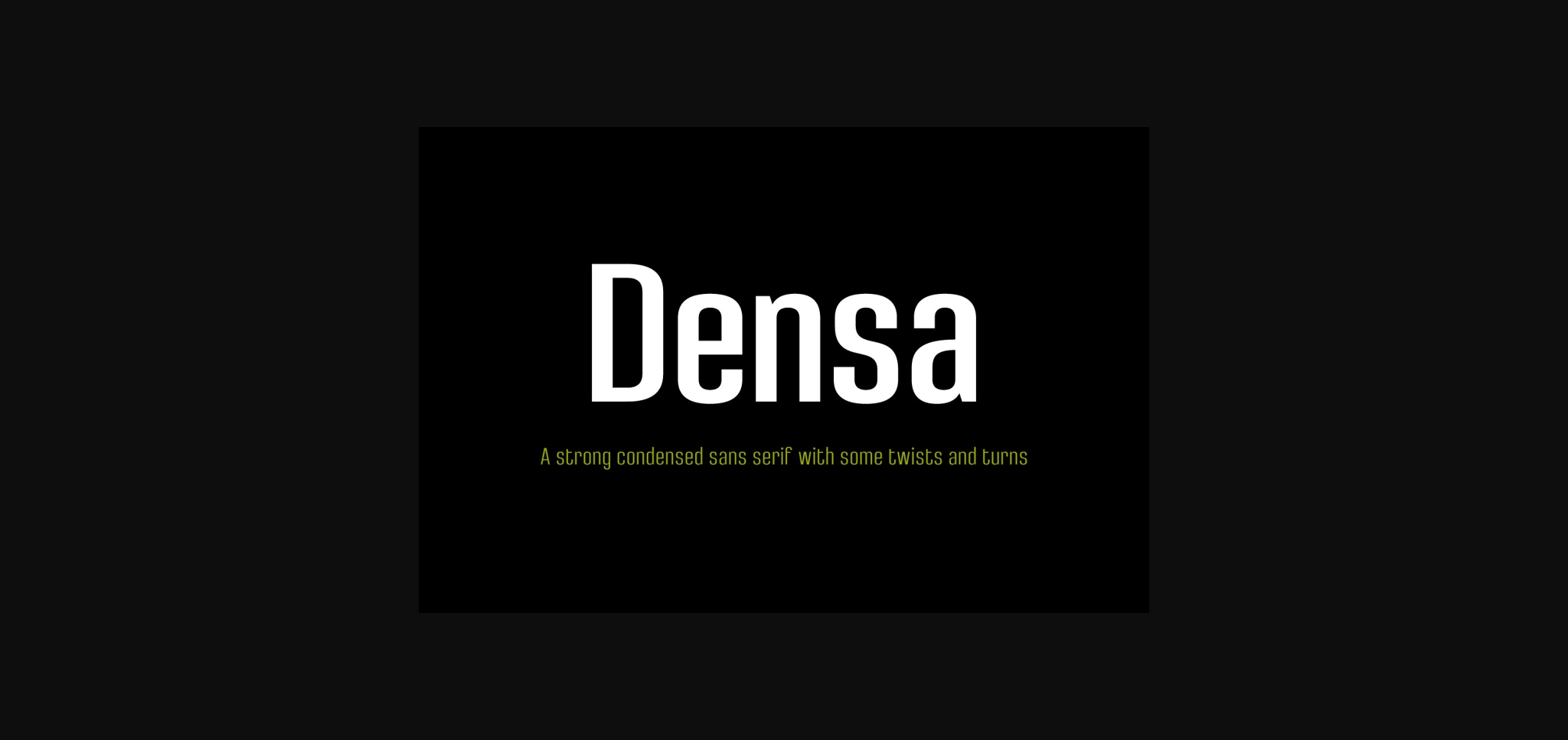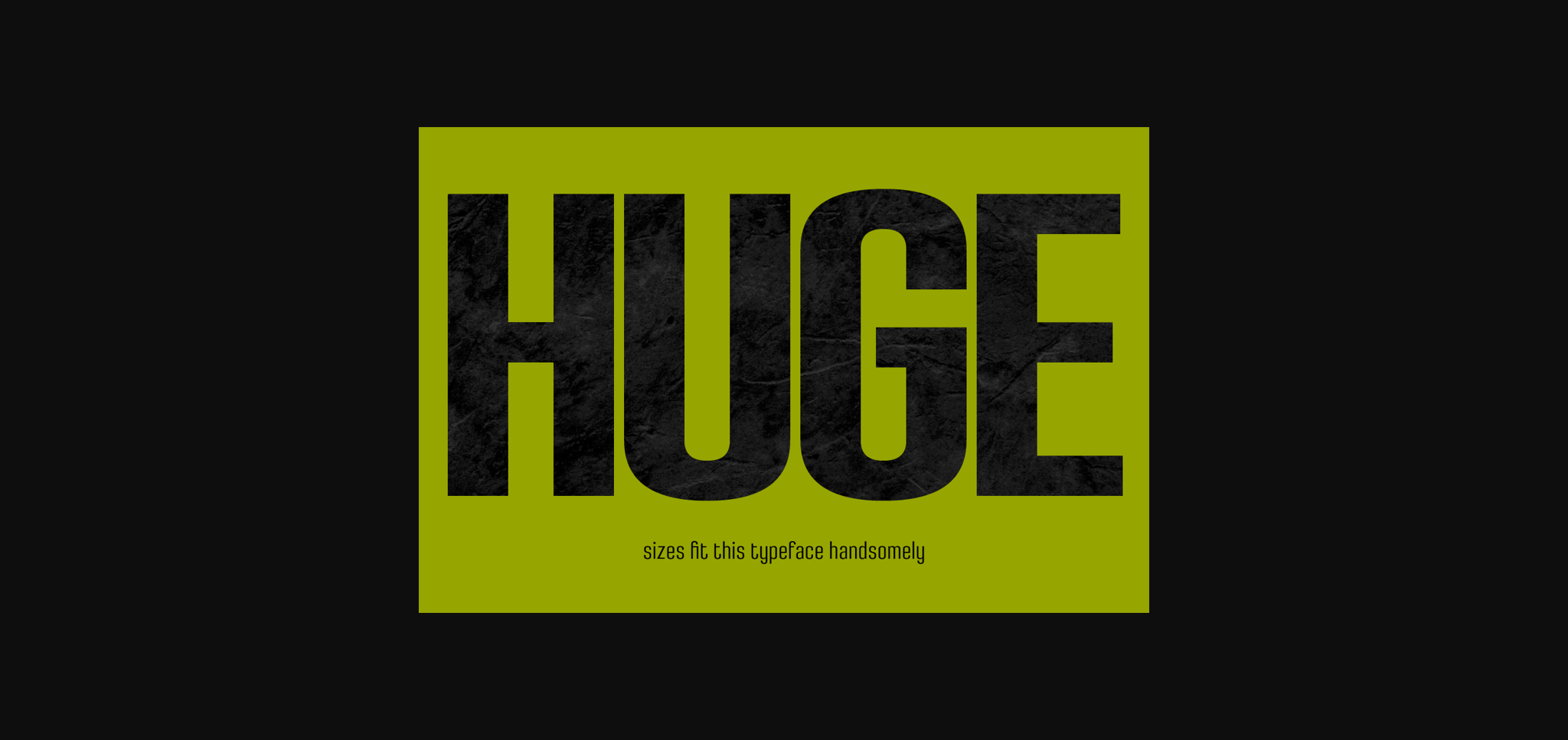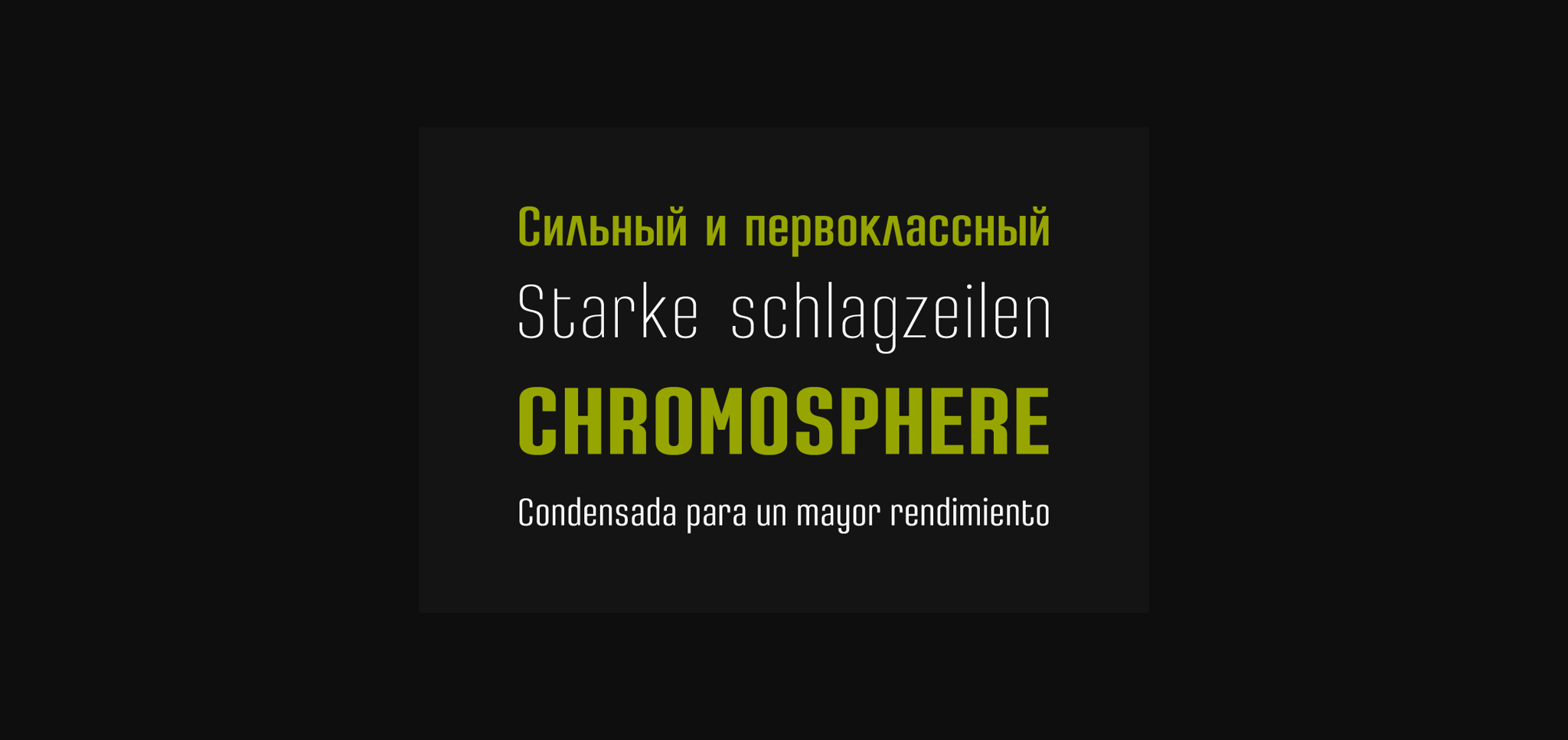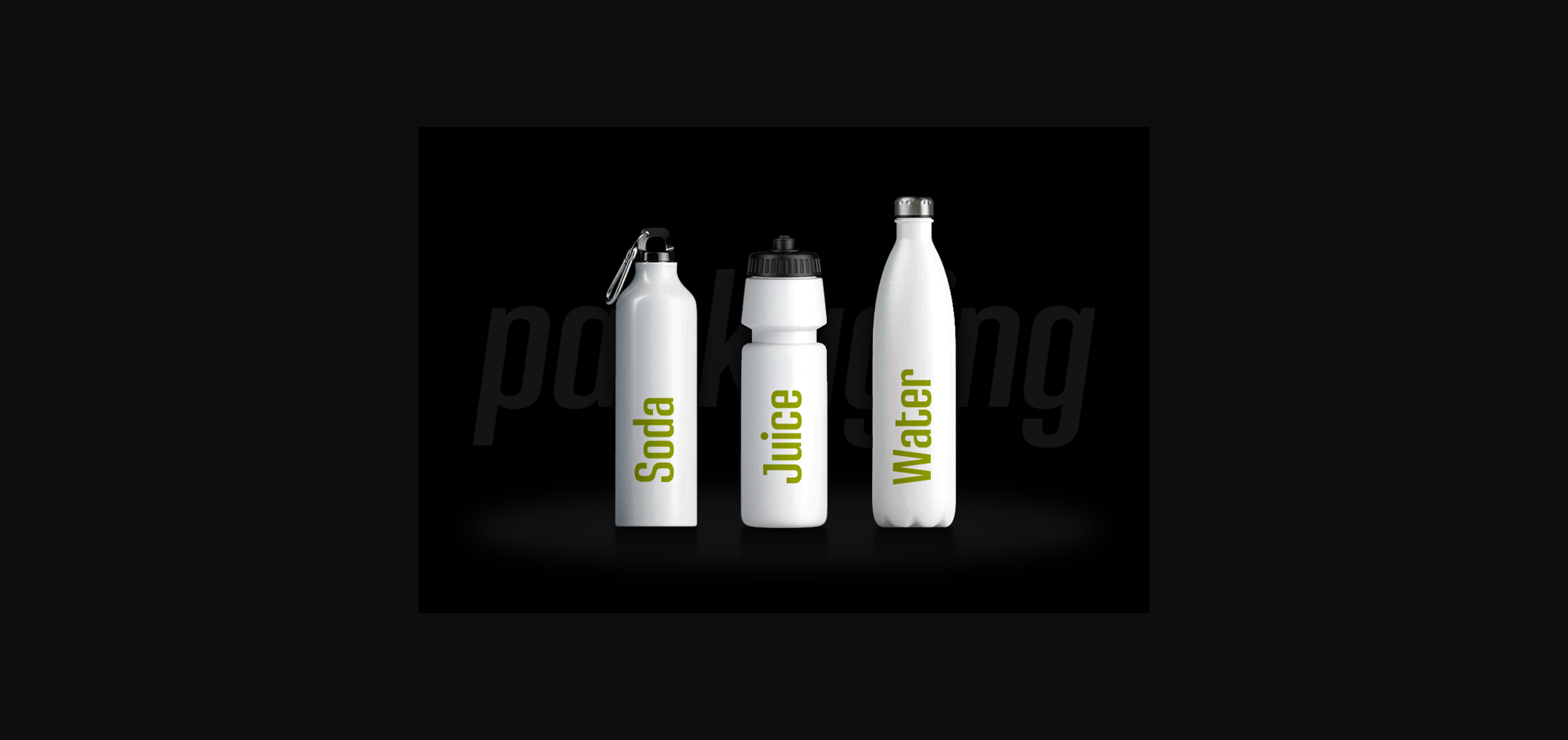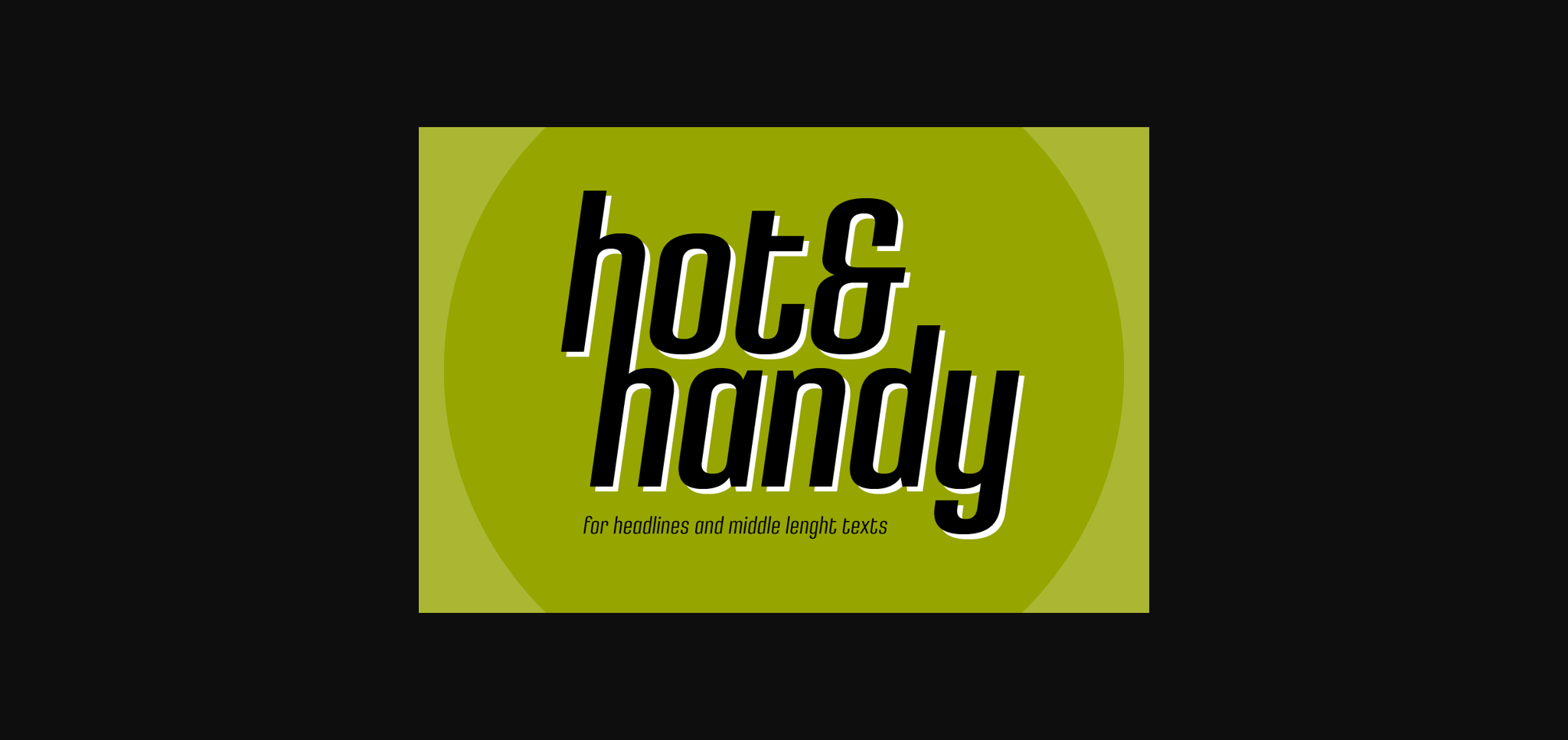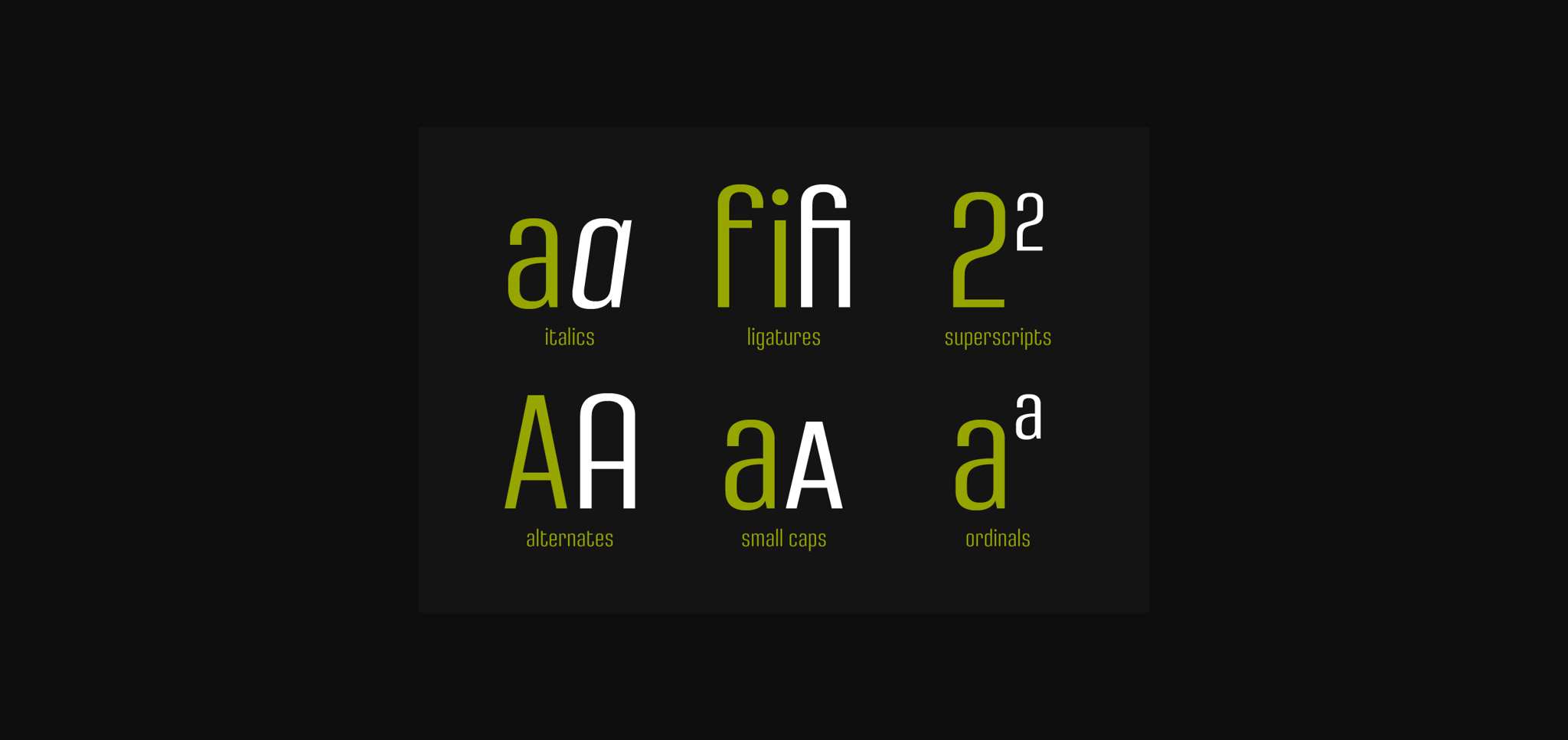
About Densa Family Font
Densa font family has been designed for Graviton Font Foundry by Pablo Balcells in 2020. It is a condensed sans serif typeface with some unconventional display endings. Its condensed design makes it very effective for space economizing and its display features make it a very interesting option for display usages such as logos, packaging and posters. It has been conceived to be most suitable for headlines and short length text blocks.
Densa consists of 8 styles. Each containing small caps and glyph coverage for several languages.